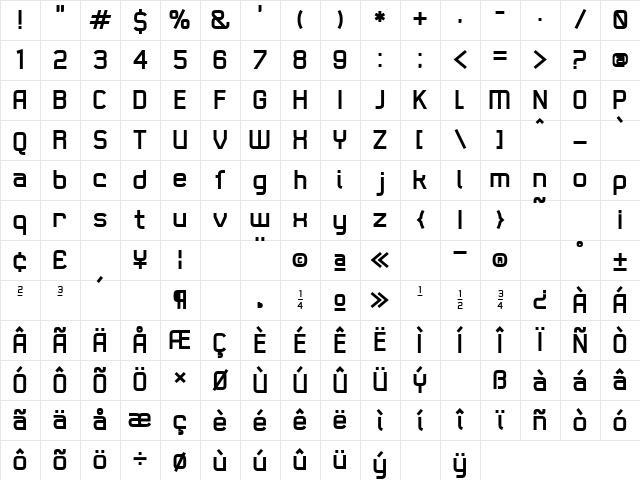
21st Black Free Font
21st Black
Design Context for 21st
21st is a composed and adaptable typeface that performs quietly and consistently across a wide range of design contexts.